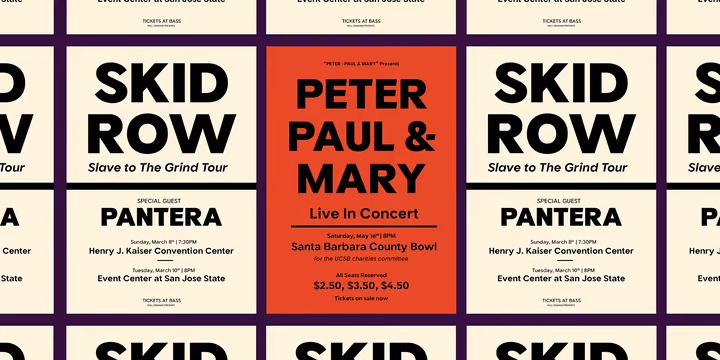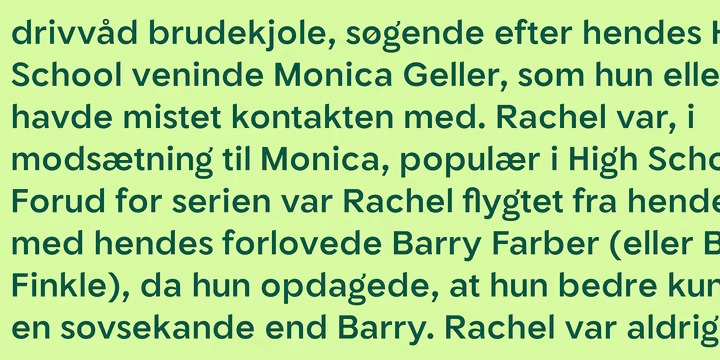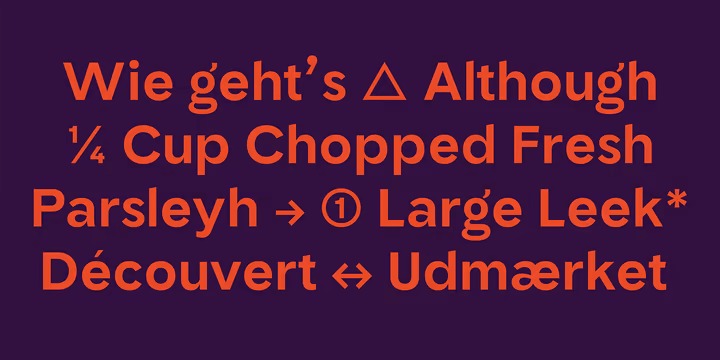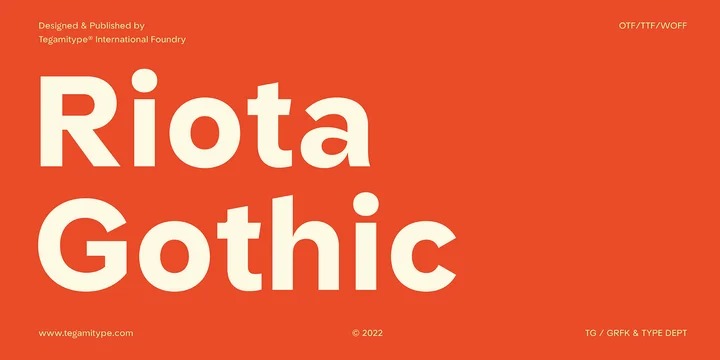
TG Riota Gothic Font Family
TG Riota Gothic Sans Serif Font
It’s a modern sans serif font anytime and very well, comes with a modern style hoping to become a favorite by the market. TG Riota Gothic is outstanding for use in small text or even bigger sizes with seven weights, two axes & 14 styles, including the variable font.
It comes with three alternative groups (single story alternates, no tail alternates & square dot alternates), which you can combine to maximize your needs—also supplied with a bunch of ligatures (standard & discretionary ligatures), lining figures (proportional, denominators, numerators, fractions, subscript & superscript), case-sensitive forms, symbol & Each typeface contains over 674 glyphs covered more than 90 languages Latin based.